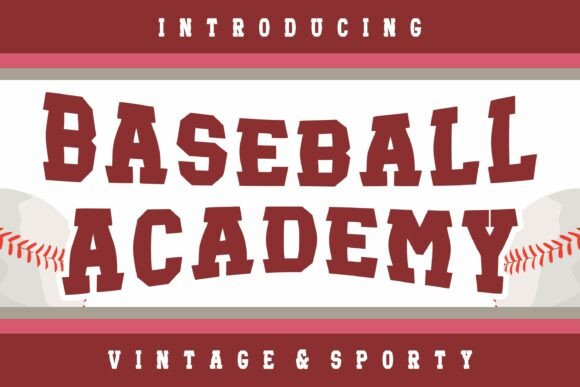
Baseball Academy Font: Bold Display Type for Crafters & Sellers
If you’ve ever spent hours tweaking a label, adjusting spacing on a wedding welcome sign, or testing how a font cuts on your Cricut—only to find it looks weak or washed out at small sizes—you’ll appreciate Baseball Academy. This isn’t just another display font. It’s a slab-serif powerhouse built from the DNA of vintage baseball pennants, college letterman jackets, and hand-painted dugout signs. Its thick, confident strokes, squared-off serifs, and rhythmic letterforms give physical products instant presence—without sacrificing clarity.
As a maker who designs printable party kits, sews boutique garment tags, and prints seasonal stickers for local markets, I reach for Baseball Academy when I need something that reads *strong*, *authentic*, and *unmistakably handmade*. It’s not delicate. It doesn’t whisper. It announces—cleanly, boldly, and with real texture. That makes it ideal for projects where first impression matters: product packaging, shop signage, invitation suites, and digital templates meant to be printed and framed.
Here’s where Baseball Academy shines in real-world craft use:
- Labels & Tags: Use it for candle jars, soap bars, or small-batch hot sauce bottles—especially when paired with a clean sans serif for ingredients or origin notes. Its sturdy letterforms hold up beautifully at 10–12 pt on matte kraft labels.
- Stickers & Vinyl Decals: The generous counters (open spaces inside letters like ‘e’ or ‘a’) and consistent stroke weight prevent fill-in during weeding or transfer. Perfect for die-cut team-themed stickers, baby shower favors, or gym-branded water bottle decals.
- Invitations & Wedding Stationery: Pair “Mr. & Mrs.” or “Est. 2024” in Baseball Academy with a relaxed script for names and a crisp sans serif for details. It adds grounded charm to rustic barn weddings, vintage baseball-themed showers, or even modern farmhouse announcements.
- Wall Art & Printable Signage: Whether it’s an SVG file for a laser-cut wooden “Home Run” wall hanging or a downloadable 8x10 PDF for a nursery, this font scales cleanly from 24 pt to 200+ pt—no pixelation, no awkward gaps.
- Mugs, Totes & Apparel: Its athletic rhythm translates well to screen-printed or heat-pressed text. Try “Team [Last Name]” across the chest of a family reunion tee, or “Grand Slam Coffee Co.” on ceramic mugs—always legible, always energetic.
Readability is non-negotiable when your customers are holding your product—not scrolling past it. Baseball Academy delivers on that front. Its open apertures and balanced x-height mean it stays clear even on textured paper or at 8 pt on woven fabric tags. For cutting machines like Silhouette Cameo or Cricut Explore Air, avoid using it below 6 pt for intricate cuts—but at 8 pt and up, it’s consistently reliable for clean outlines and sharp corners.
Font pairing is where Baseball Academy truly becomes versatile. Think of it as your anchor—the bold, memorable voice in your design. Then layer in contrast:
- Pair it with a warm, slightly irregular script font for names or quotes—think hand-lettered elegance next to its structured strength.
- Balance it with a neutral sans serif font (like Montserrat or Lato) for body text, care instructions, or pricing. The contrast feels intentional, not accidental.
- For vintage authenticity, try a subtle serif font with low contrast (like Playfair Display Light) beneath a Baseball Academy headline—it echoes old-school newspaper mastheads or collegiate yearbook covers.
This is a display font, so keep expectations realistic: it’s not meant for paragraphs or long-form web copy. But for short phrases—“Fresh Catch,” “Game Day,” “Est. 2017,” “Champions”—it commands attention and builds brand recognition fast. Customers remember how something feels before they read what it says. Baseball Academy feels dependable, spirited, and proudly handmade.
Before downloading, check what’s included: most versions offer both OTF and TTF files, basic OpenType features (standard ligatures and stylistic alternates), and full uppercase support. While it’s not a multilingual font with extended diacritics, it covers English, Spanish, French, and German characters needed for common craft labels and greetings. No swashes or flourishes—just focused, functional boldness.
At its core, Baseball Academy is more than typography—it’s visual shorthand for effort, tradition, and pride in craft. It tells your customer, without saying a word, that this item was made with intention. That the label wasn’t slapped on, the invitation wasn’t templated out of habit, and the sign hanging above your shop door means something. In a market flooded with generic fonts and AI-generated designs, choosing a purpose-built display typeface like Baseball Academy is one of the simplest, most effective ways to elevate your handmade identity—consistently, confidently, and commercially.